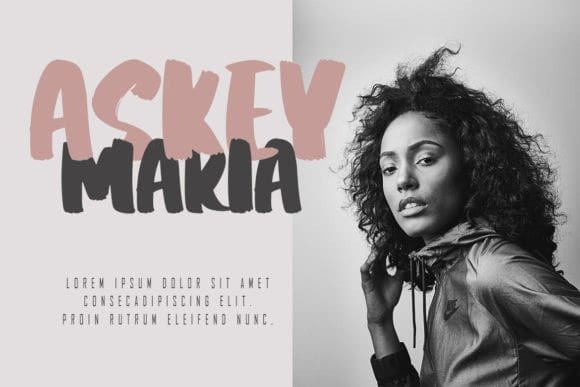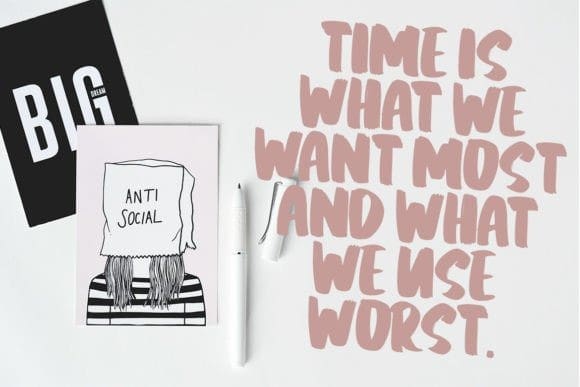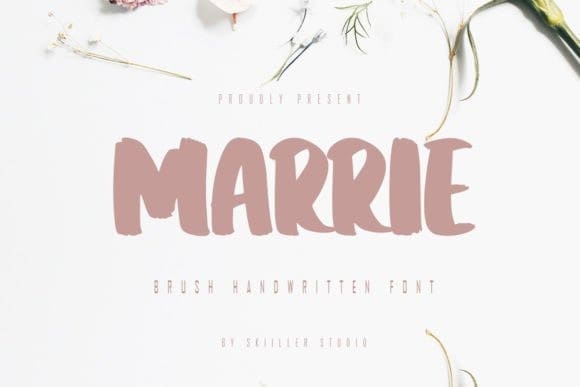
Marrie Brush Font
Marrie Brush Font a statement with the Marrie handwritten font – a confident and playful script font with a bold, in-your-face style. Perfect for adding personality and character to your designs, this font will bring fun and liveliness to your projects. Be bold, be unique, and be you with this font.